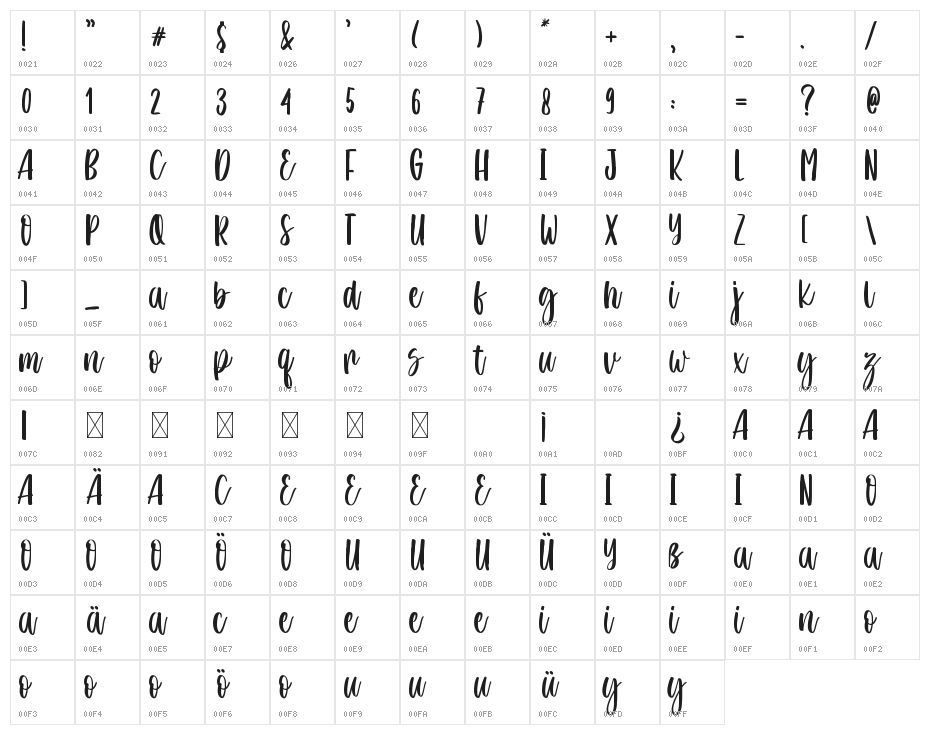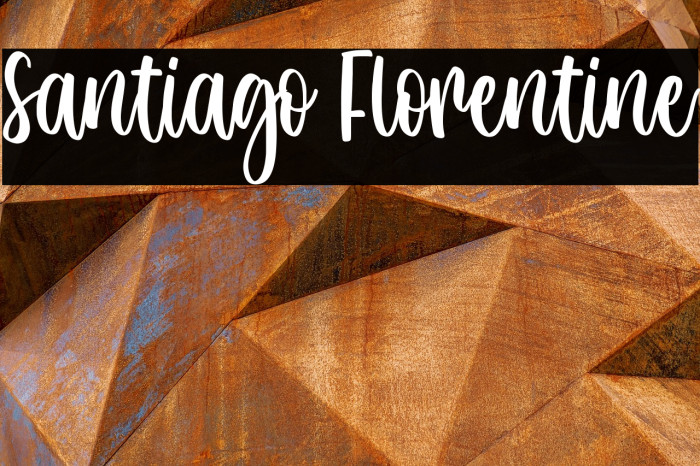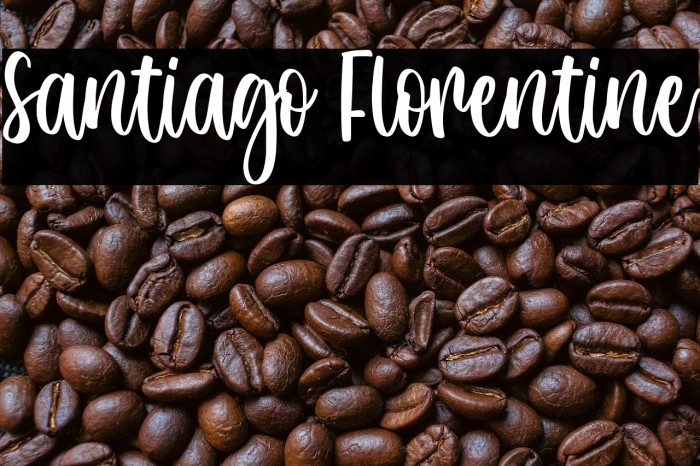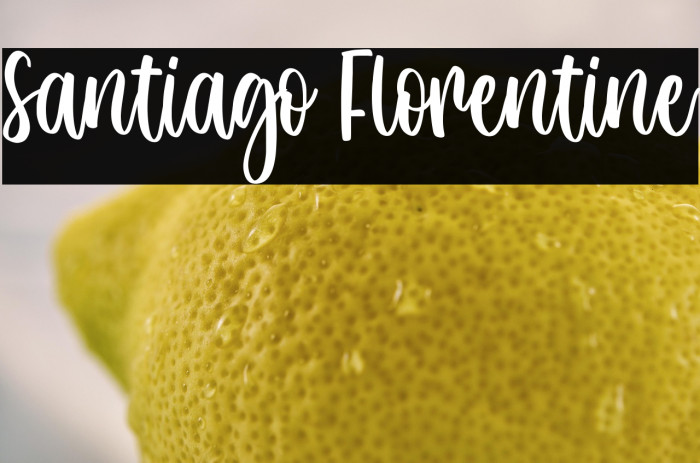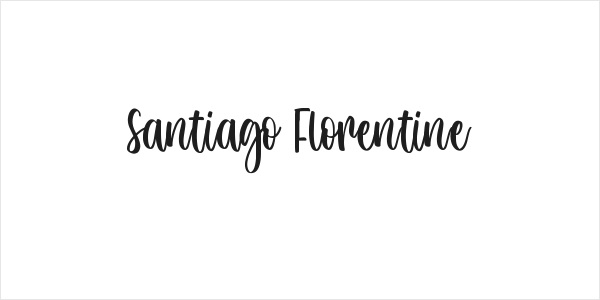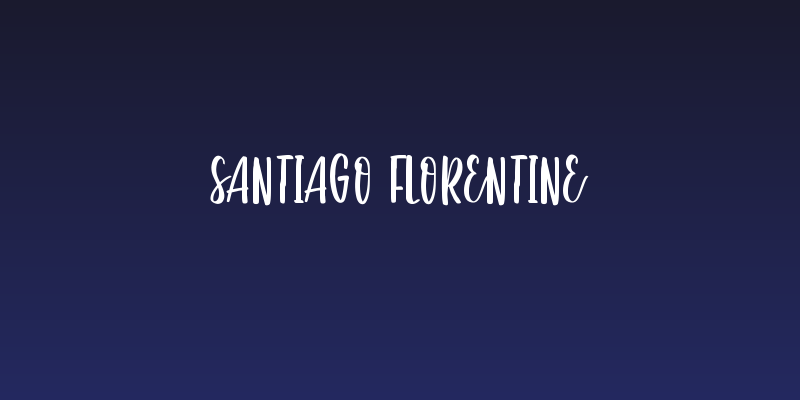
Santiago Florentine Font
Santiago Florentine Description
This font features a lively and expressive handwritten style, characterized by its fluid and dynamic strokes. The uppercase letters are bold and slightly condensed, giving a strong presence, while the lowercase letters maintain a consistent flow with a touch of elegance. The numerals are clear and legible, matching the overall style with a playful yet sophisticated look. Special characters are well-integrated, enhancing the font's versatility. This font's unique charm makes it suitable for creative projects that require a personal touch.
Use CaseLogos, Headlines, Creative projects
Proposed ProjectsIdeal for greeting cards, invitations, branding, and social media graphics.